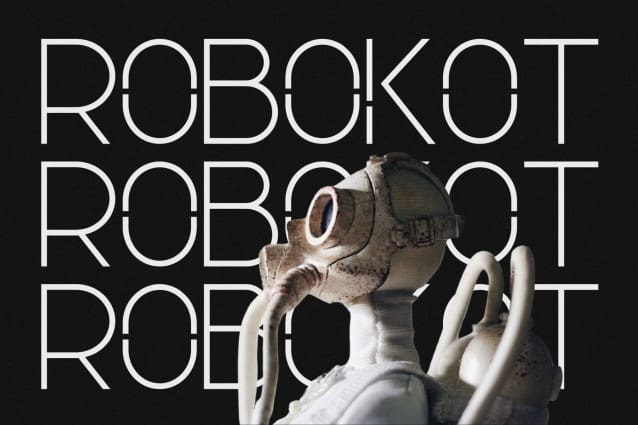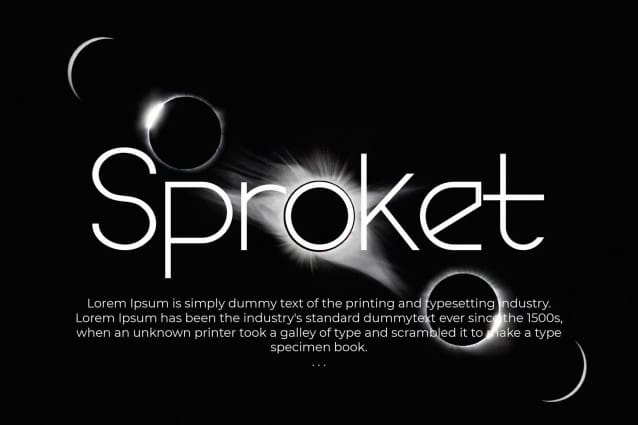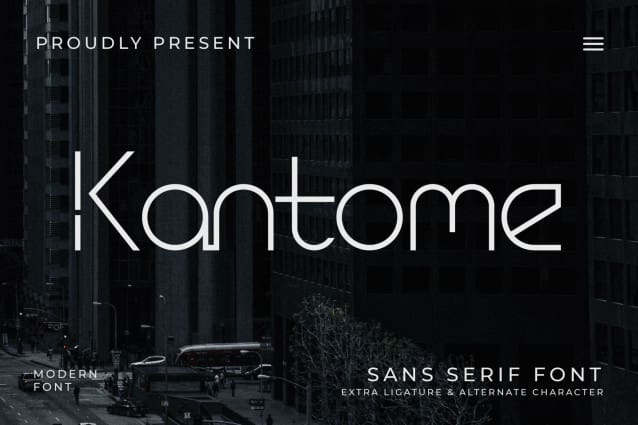
Kantome Font
Kantome Font, a futuristic font perfect for robotics, space, future technology and innovative products!
Kantome San serif font includes Regular and Italic styles. Also includes alternates and ligatures.
Supports multilingualism (Western European Latin), with numbers and punctuation.